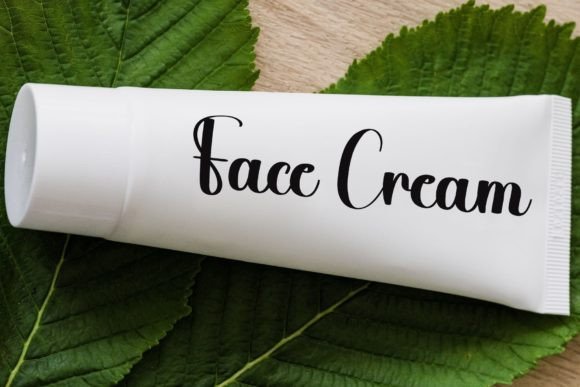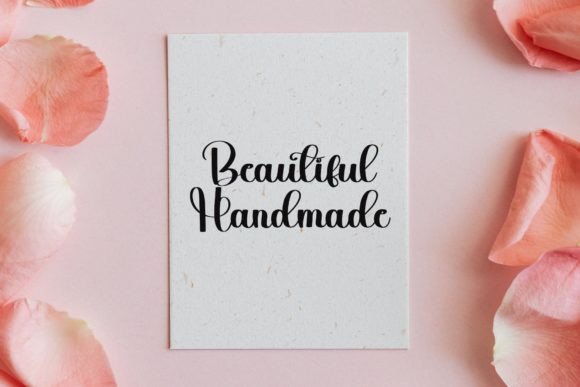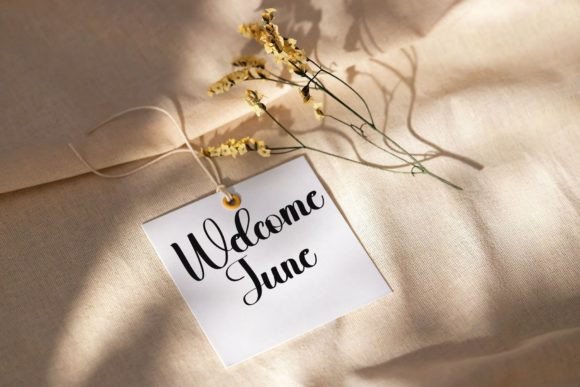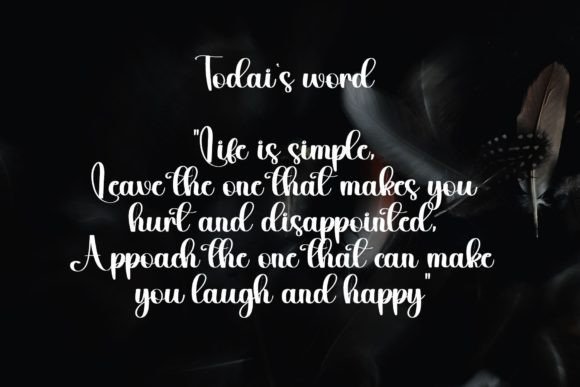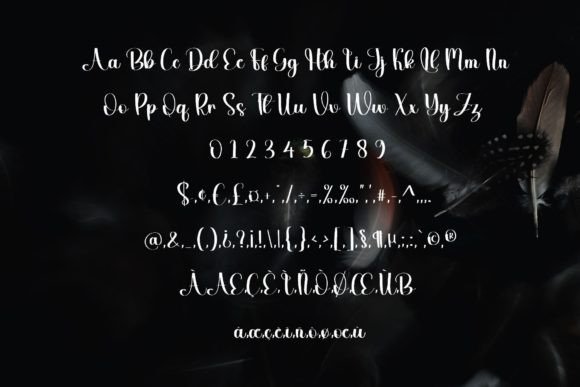
About Liquid Font
**Liquid Font: Where Elegance Meets Subtle Sophistication**
Introducing “Liquid,” a sweet and thin serif font crafted to add a touch of luxury spark to your design projects. With characters that gracefully dance along the baseline, Liquid brings a subtle sophistication and elegance, making it the perfect choice for your refined and charming designs.
At the heart of “Liquid” is a delicate blend of sweetness and subtle sophistication. The font’s thin serifs and characters dancing along the baseline create an exquisite visual experience, adding a luxurious spark to your text. Each letter becomes a graceful brushstroke, transforming your design into a harmonious expression of sophistication.
The versatility of “Liquid” makes it an ideal choice for a variety of creative applications. Envision it bringing an understated elegance to wedding invitations, infusing charm into product packaging, or becoming the signature font for sophisticated branding. This font becomes a dynamic companion, effortlessly adapting to the essence of your creative vision.
The adaptability of “Liquid” makes it suitable for various projects across different mediums. Whether you’re working on logos, crafting eye-catching posters, or creating elegant stationery, this font becomes the brushstroke that adds a refined and subtle sophistication to your work.
In conclusion, “Liquid” is more than just a font; it’s an artistic expression where sweetness meets subtle sophistication. Embrace it, and witness your designs come alive with a touch of luxurious charm. With “Liquid,” every letter becomes a graceful movement, leaving an indelible mark of sophistication on your design journey.